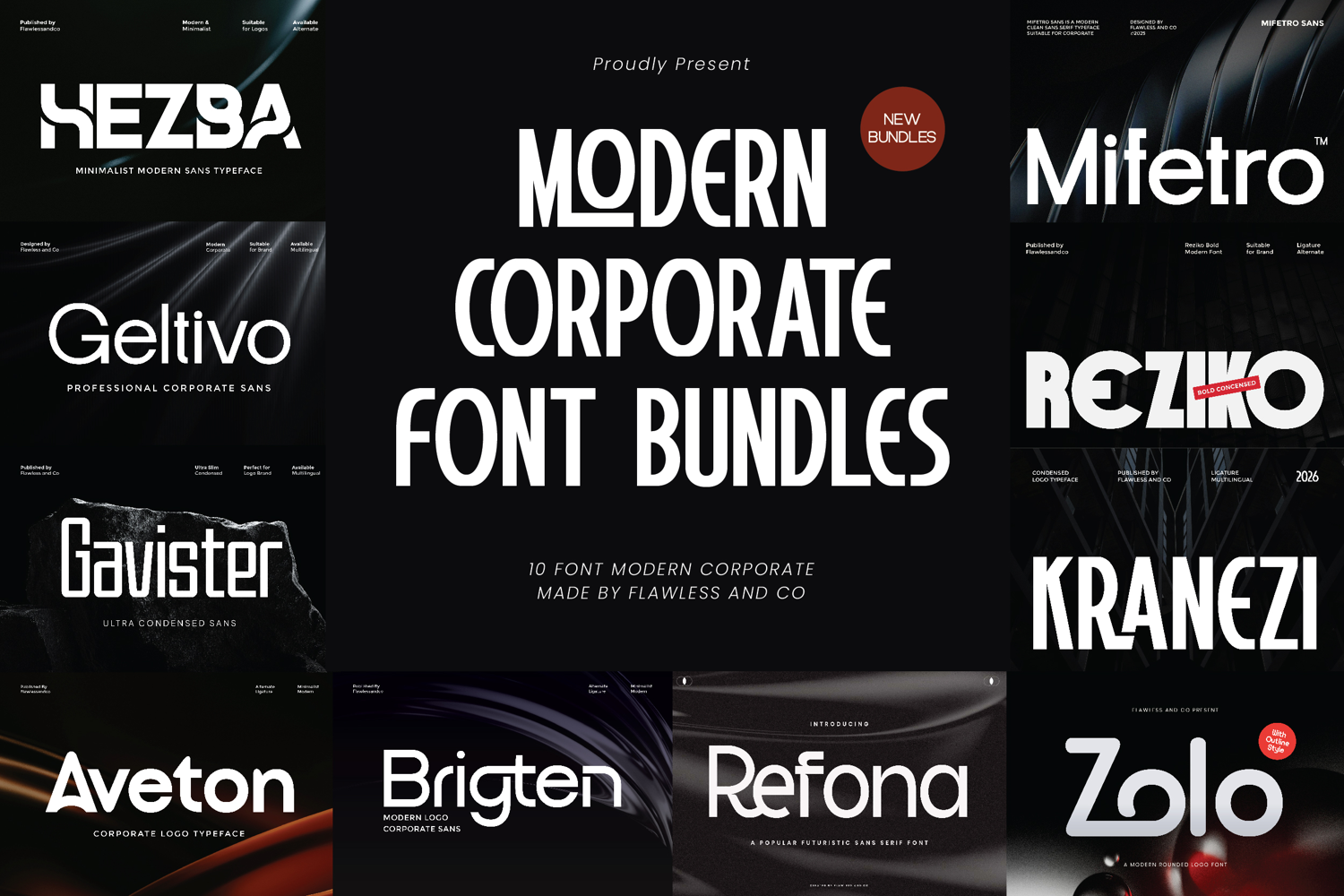
Modern Corporate Bundle
Introducing the “Modern Corporate Bundle,” a clean and professional collection of fonts designed to deliver clarity, structure, and a strong corporate identity across your creative projects. Each font in this bundle features modern letterforms, balanced proportions, and a sleek visual style that reflects professionalism and trust.
These fonts combine contemporary design with a corporate-focused aesthetic, making them ideal for projects that require a polished, minimal, and business-oriented look. Whether you're working on branding, presentations, corporate materials, or digital platforms, this bundle provides versatile fonts that communicate confidence and consistency.
This bundle includes 10 high-quality modern corporate fonts carefully crafted for professional and business use. They are suitable for a wide range of design purposes such as brand identity, logos, business presentations, reports, websites, marketing materials, social media, stationery, and more.
Uppercase & Lowercase
Alternates & Ligatures
Numerals & Punctuation
Multilingual Support
Perfect For:
Corporate branding and logo design
Business presentations and reports
Marketing materials and advertisements
Website and UI design
Startup and tech branding
Social media graphics
Stationery and business cards
Professional documents and layouts
Clean and modern display typography